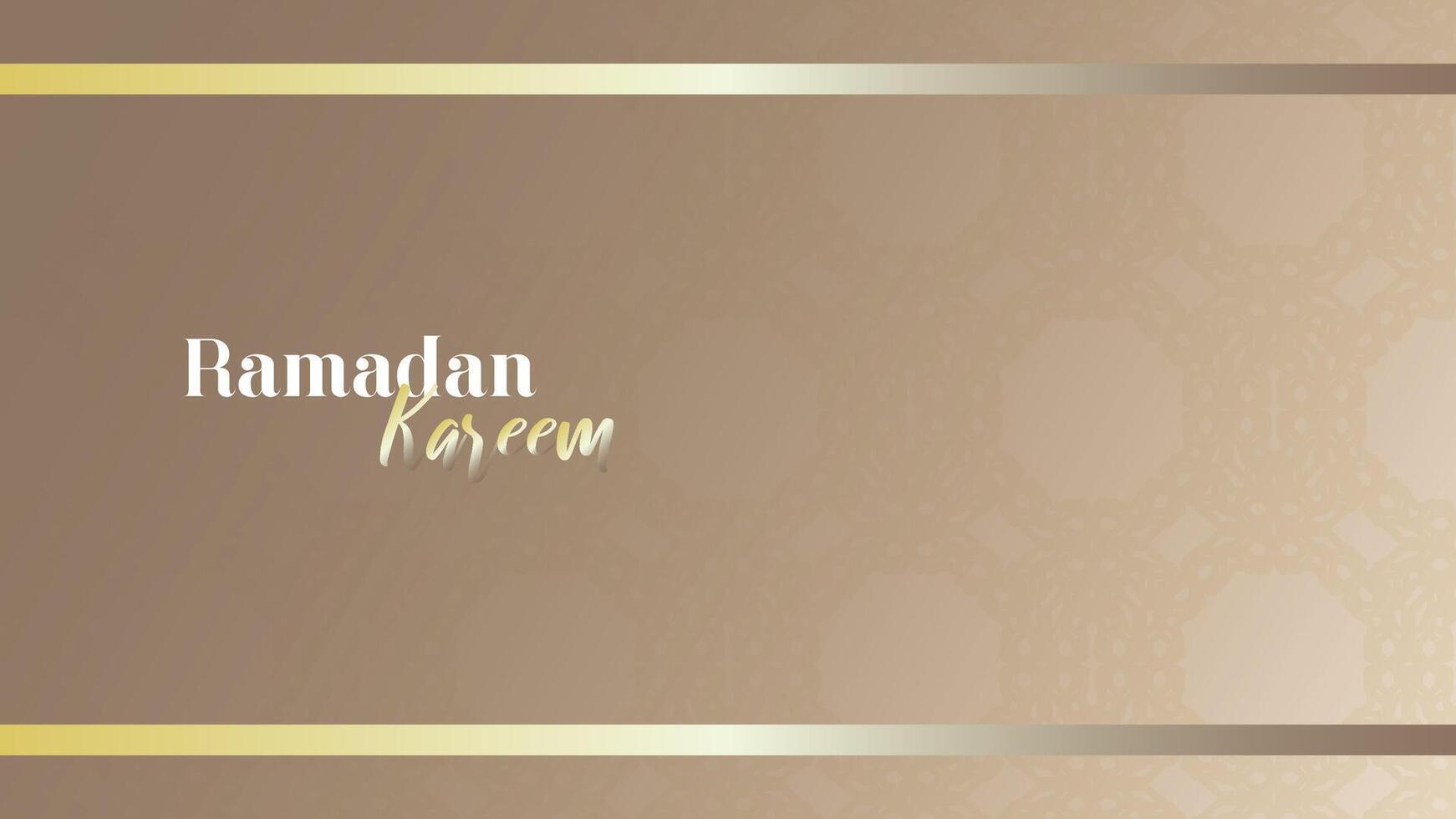
Elegant Ramadan greeting design with central text. Ramadan Kareem written in a mix of serif and script fonts. Soft gradient beige background for a warm, inviting feel. sophisticated and festive. Pro Vector